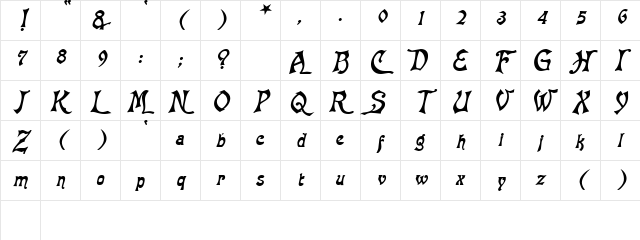
Baphomet BlackItalic
Style: BlackItalic
Baphomet Family
Baphomet BlackItalic
Design Context for Baphomet
Baphomet is a composed and adaptable typeface that performs quietly and consistently across a wide range of design contexts. The slanted form adds forward momentum and visual energy.